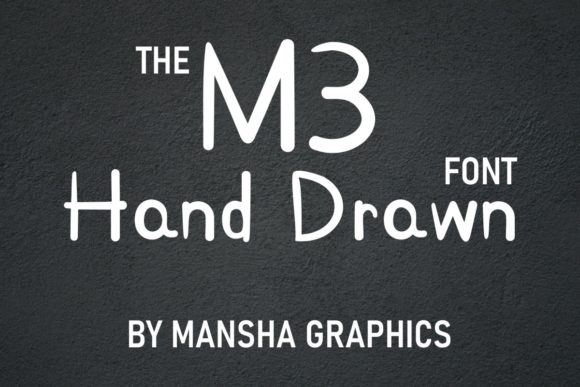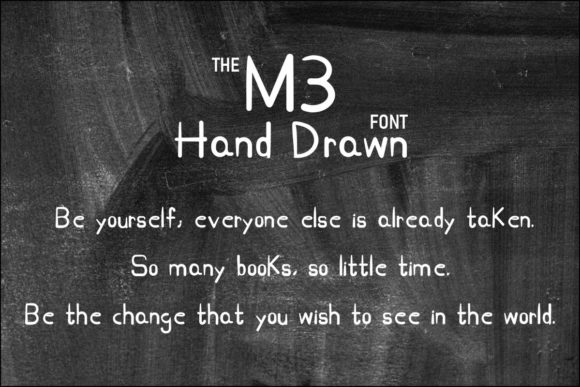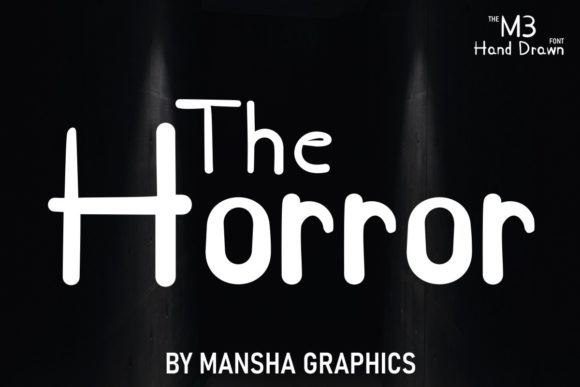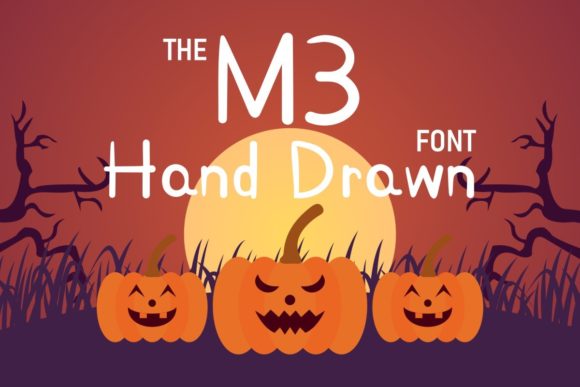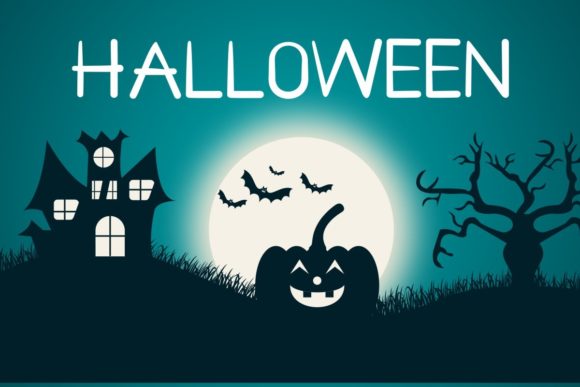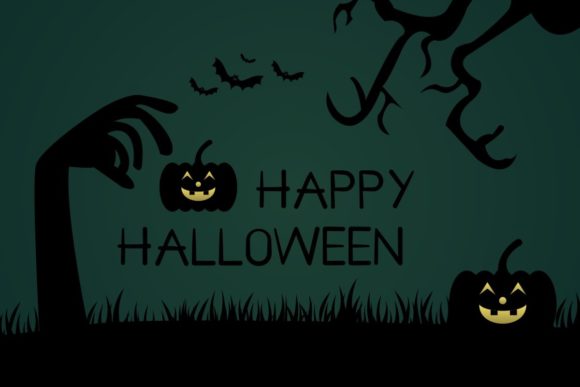
Introduction to M3 Hand Drawn Font
Have you ever stared at a blank canvas, feeling the creative pressure mounting, and wondering where to start? For designers, this moment is all too familiar. But what if you had the perfect tool to break the ice and spark your imagination? Enter the M3 Hand Drawn Font – a free download that’s about to become your new best friend.
This high-quality, handwritten font is a game-changer for any creative project. With its simple and casual vibe, it’s the perfect design resource to elevate your work and make it stand out. Whether you’re working on a personal project or a commercial design, the M3 Hand Drawn Font is sure to impress. And the best part? It’s available for free download, complete with a transparent background, making it easy to incorporate into your design.
Key Features of M3 Hand Drawn Font
- High-quality, hand-drawn design ideal for creative projects and design resources.
- Features a transparent background, allowing for easy customization and placement in any design project.
- Includes a range of characters and symbols, making it a versatile design resource for any creative project.
Honest Review: M3 Hand Drawn Font
I recently stumbled upon the M3 Hand Drawn Font and was excited to give it a try. As a designer, I’m always on the lookout for high-quality design resources that can elevate my creative projects.
The M3 Hand Drawn Font is a free download that boasts a unique, hand-drawn aesthetic. I was impressed by the level of detail and texture that went into creating this font, making it perfect for adding a personal touch to my designs.
- ✨ Unique, hand-drawn design that sets it apart from other fonts
- ✨ High-quality download with a transparent background, making it easy to use
- ⚠️ Limited character set, which may not be suitable for long-form text
- ⚠️ May not be compatible with all design software or operating systems
Overall, I was impressed by the M3 Hand Drawn Font and would definitely recommend it to designers looking for a unique and high-quality design resource. While it may have some limitations, it’s a great addition to any designer’s toolkit.
Tips for Getting the Most Out of M3 Hand Drawn Font
To get the most out of M3 Hand Drawn Font, experiment with different font sizes, colors, and layering techniques. You can also combine it with other design elements, such as graphics and images, to create a unique and eye-catching design.
M3 Hand Drawn Font is a versatile design resource that can be used in a variety of applications, including invitations, posters, social media graphics, and more. Its high quality and transparent background make it perfect for adding a personal touch to your creative project.